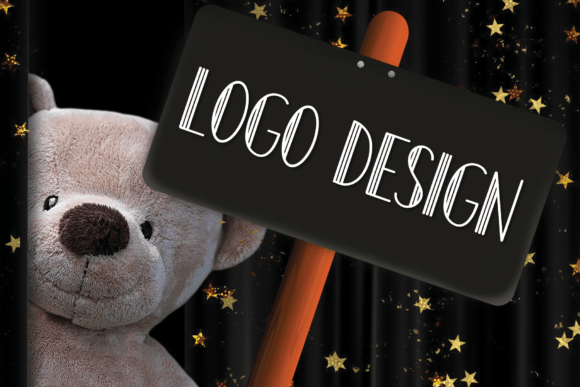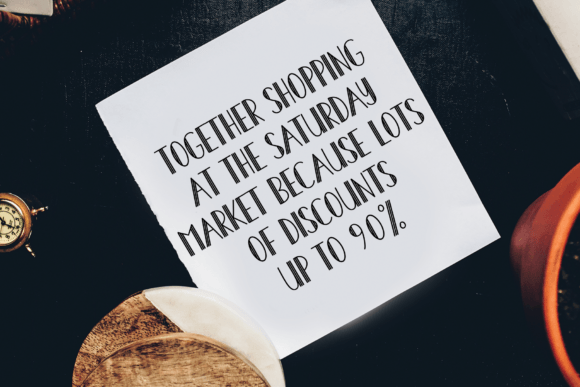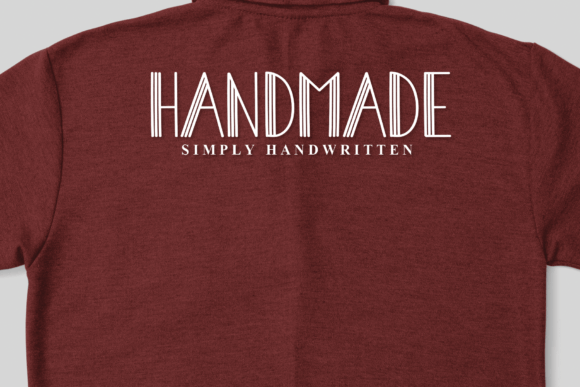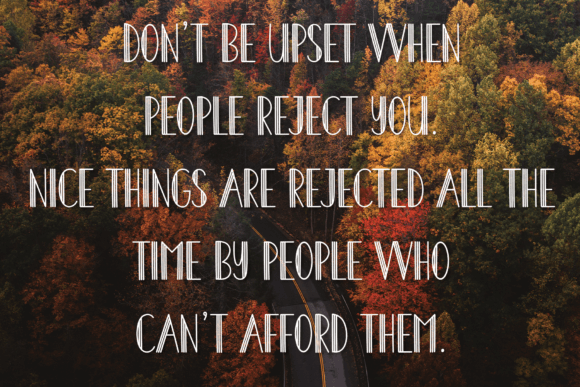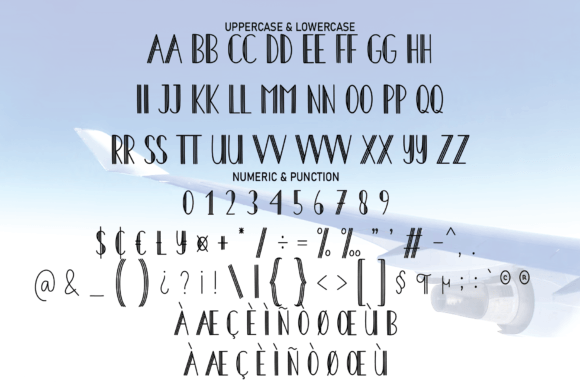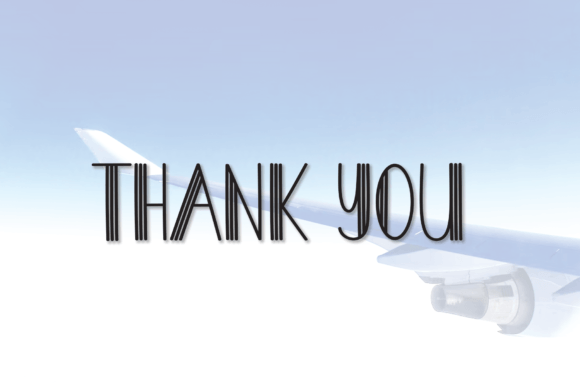
Aircraft Font: Elevate Your Designs with a Modern and Linear Display Typeface
In the world of design, typography plays a crucial role in conveying messages, evoking emotions, and creating visual identities. For designers and crafters seeking a font that embodies modernity and sophistication, Aircraft Font is an exceptional choice. This modern and linear display typeface has been crafted to make a statement, making it perfect for a wide range of applications, from wall displays and wedding invitations to social media post logos, advertisements, product packaging, and more.
What is Aircraft Font?
Aircraft Font is a contemporary typeface designed with a linear and minimalist approach. Its sleek and clean lines make it an ideal choice for designers who want to add a touch of modernity to their creations. The font’s simplicity and elegance allow it to work seamlessly with various design elements, ensuring that your message or brand identity stands out.
Key Features of Aircraft Font
- Modern and Linear Design: Aircraft Font boasts a cutting-edge design with clean lines and a minimalist aesthetic.
- Versatile: Suitable for a wide range of applications, including wall displays, wedding invitations, social media post logos, advertisements, product packaging, product designs, labels, photography, watermarks, invitations, and stationery.
- Easy to Read: Despite its modern and minimalist design, Aircraft Font remains highly legible, making it perfect for both digital and print applications.
- High-Quality: Crafted with precision, Aircraft Font is a high-quality typeface that will elevate your designs and make them stand out.
Applications of Aircraft Font
Aircraft Font is incredibly versatile and can be used in various design projects. Here are some of the ways you can utilize this fantastic typeface:
- Wall Displays: Create stunning wall art, posters, or banners that grab attention with Aircraft Font.
- Wedding Invitations: Add a touch of modern elegance to your wedding invitations, save-the-date cards, or wedding stationery.
- Social Media Post Logos: Use Aircraft Font to create eye-catching social media post logos, headers, or graphics that make your content stand out.
- Advertisements: Craft compelling advertisements with Aircraft Font, perfect for print or digital ads.
- Product Packaging: Elevate your product packaging with a modern and sophisticated typeface that reflects your brand’s identity.
- Product Designs: Incorporate Aircraft Font into your product designs, such as labels, tags, or instruction manuals.
- Photography: Add a watermark or overlay text to your photos using Aircraft Font, giving your images a professional touch.
- Invitations and Stationery: Use Aircraft Font to create stylish invitations, greeting cards, or stationery that make a lasting impression.
Why Choose Aircraft Font?
With so many typefaces available, why should you choose Aircraft Font? Here are a few compelling reasons:
- Unique and Modern Design: Aircraft Font offers a fresh and contemporary design that will set your designs apart.
- Highly Versatile: This typeface can be used in a wide range of applications, making it a valuable addition to your design library.
- Professional Quality: This typeface is crafted with precision and attention to detail, ensuring a professional finish for your designs.
In conclusion, Aircraft Font is a modern and linear display typeface that offers a world of creative possibilities. Its sleek design, versatility, and high-quality craftsmanship make it an excellent choice for designers and crafters seeking to elevate their designs. Whether you’re working on a wall display, wedding invitation, social media post, or product packaging, Aircraft Font is sure to make a statement.